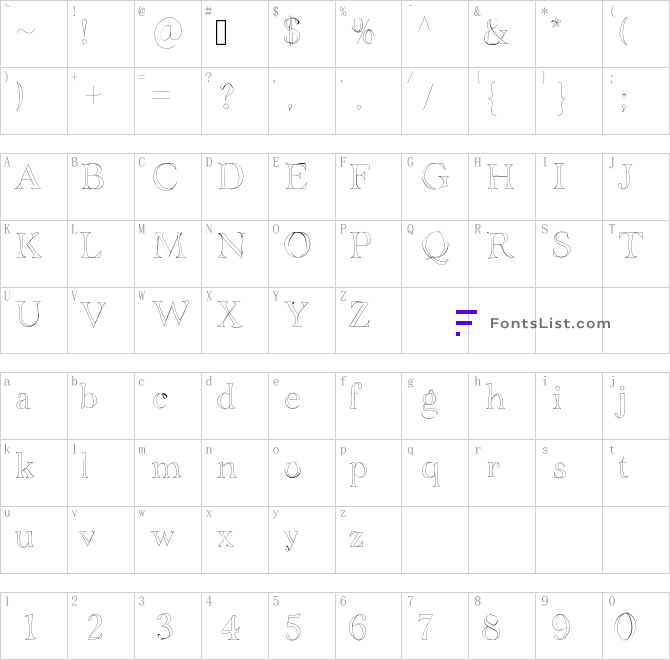
- Font Name:BDGrenoble
BDGrenoble.ttf is a very beautiful artistic font, BDGrenoble.ttf is widely used in the design and printing of various books and pictures,BDGrenoble.ttf has a strong visual impact,BDGrenoble.ttf is a commonly used font in newspapers, magazines and books, and is used in posters, e-commerce Poster design, store design, logo design, font design and other fields.BDGrenoble.